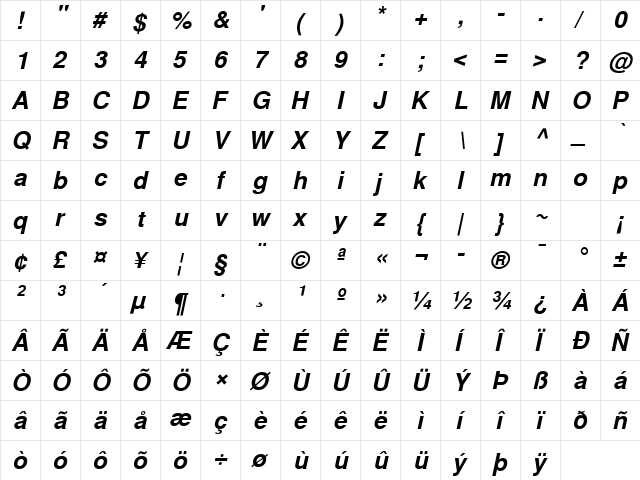
FreeSans Bold Oblique Font Preview
Design Context for FreeSans Typeface
FreeSans offers clean, dependable letterforms without strong stylistic allegiance, making it a practical choice for designers who need flexibility. Its italic angle brings a sense of urgency and motion to the letterforms. Its bold stroke weight gives it real presence on the page.
Pro Tip: Try FreeSans for annotation and caption copy alongside an upright companion — the contrast in angle creates a dynamic but ordered typographic system.